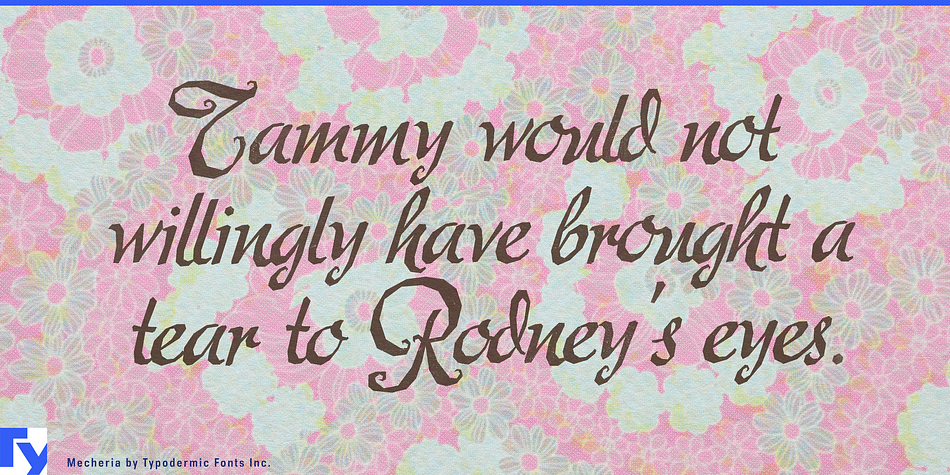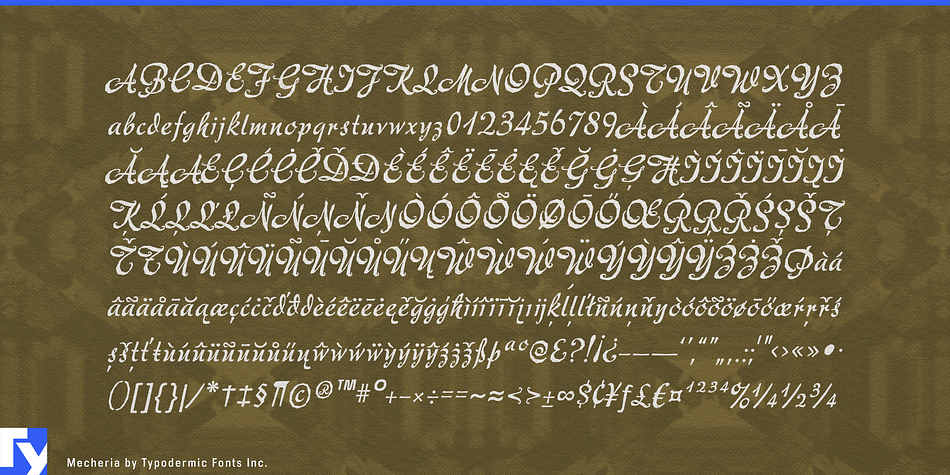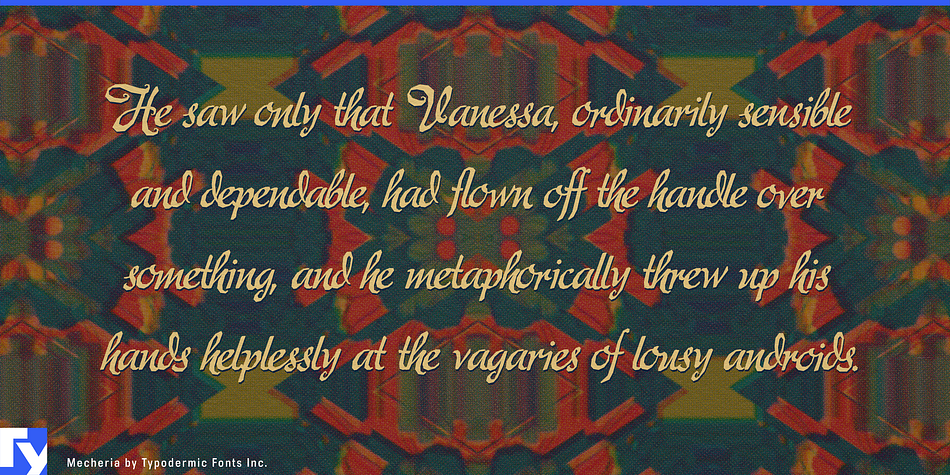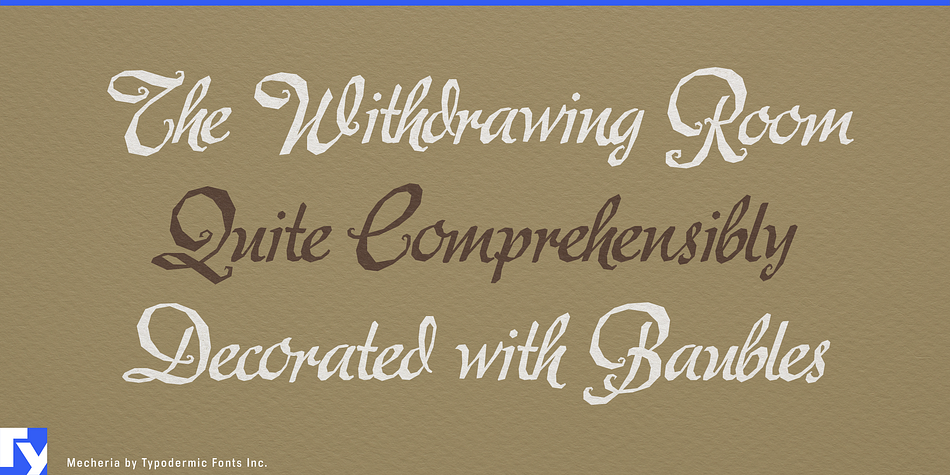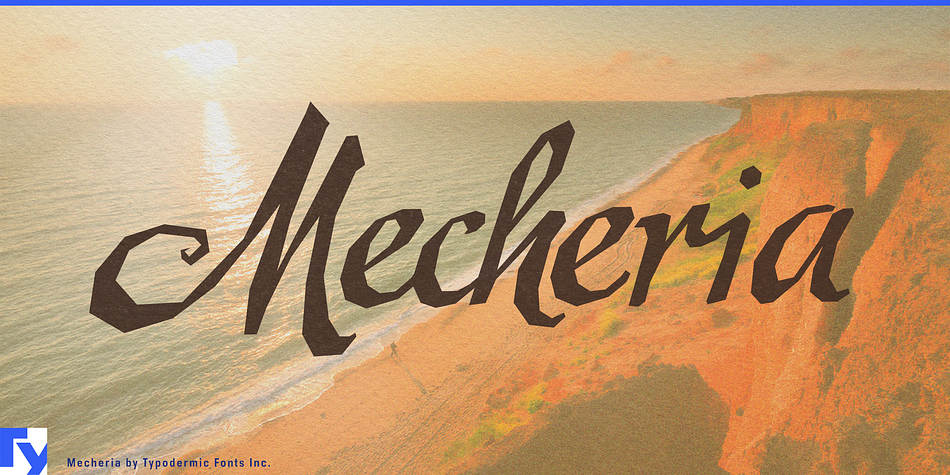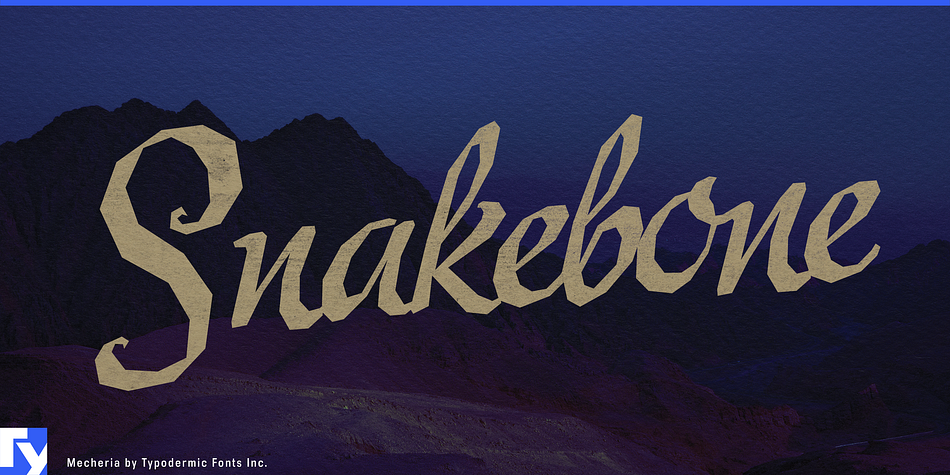
Mecheria is a script and brush script font published by Typodermic Fonts Inc.
Mecheria conjures up images of a far off place in another time. At first glance, she’s delicately rounded and brimming with sensuous swashes. Enigmatic, exotic, slightly goth, Mecheria reveals only a tantalizing glimpse of her potential. She’s a font whose appeal defies simple description. Mecheria was inspired by the letter forms from a 1939 font called Amanda.